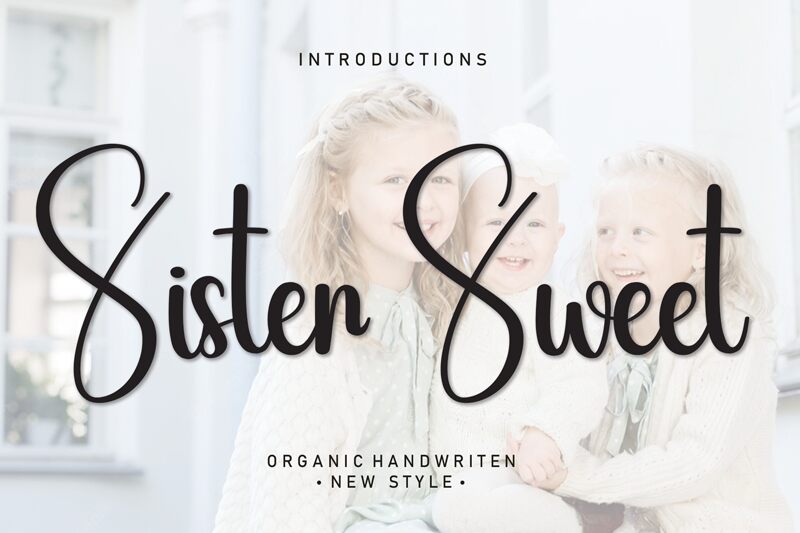
Sister Sweet
Sister Sweet, crafted by Scratchones, brings the charm of handwritten notes to any project. This font exudes a cozy and personal touch with its flowing, cursive style that seems to dance across the page. Its condensed form adds a touch of elegance and sophistication, making it ideal for invitations, greeting cards, and branding that requires a bespoke feel.
The aesthetic appeal of Sister Sweet lies in its ability to capture the warmth of hand-penned words while maintaining readability. It strikes a balance between decorative flair and functional design, ensuring that messages are not just seen but felt.
In design contexts where space is at a premium yet style can't be compromised-such as in beauty product labeling or editorial headings-Sister Sweet shines. Its unique blend of personality and grace makes it a go-to choice for designers aiming to create an intimate connection through typography.